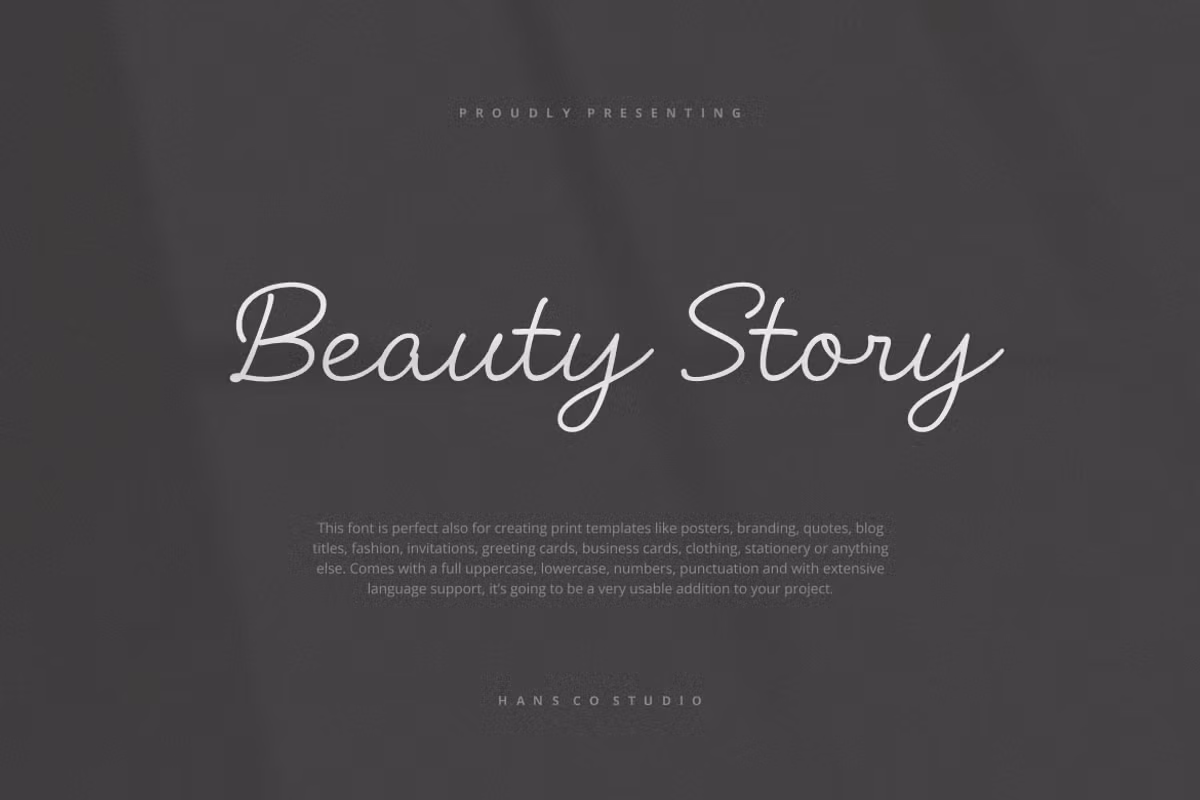
Beauty Story Font Free Download
The Beauty Story Font Free Download is a graceful and elegant typeface designed to bring sophistication and charm to your designs. Featuring smooth, flowing letterforms with a stylish, handwritten touch, this font is perfect for creating stunning logos, branding, invitations, and social media graphics. Whether you're designing for a beauty brand, a wedding, or any creative project that needs a refined, personal feel, Beauty Story adds a delicate and polished vibe to your work.
Beauty Story Font Free Download is ideal for designers looking for an elegant, feminine script to elevate their typography. Perfect for high-end branding, creative projects, or romantic designs, this font will add a sophisticated, personal touch to your work. Download it today and bring a stylish and graceful vibe to your creative projects with Beauty Story!